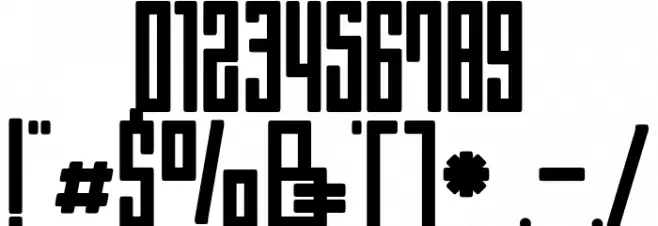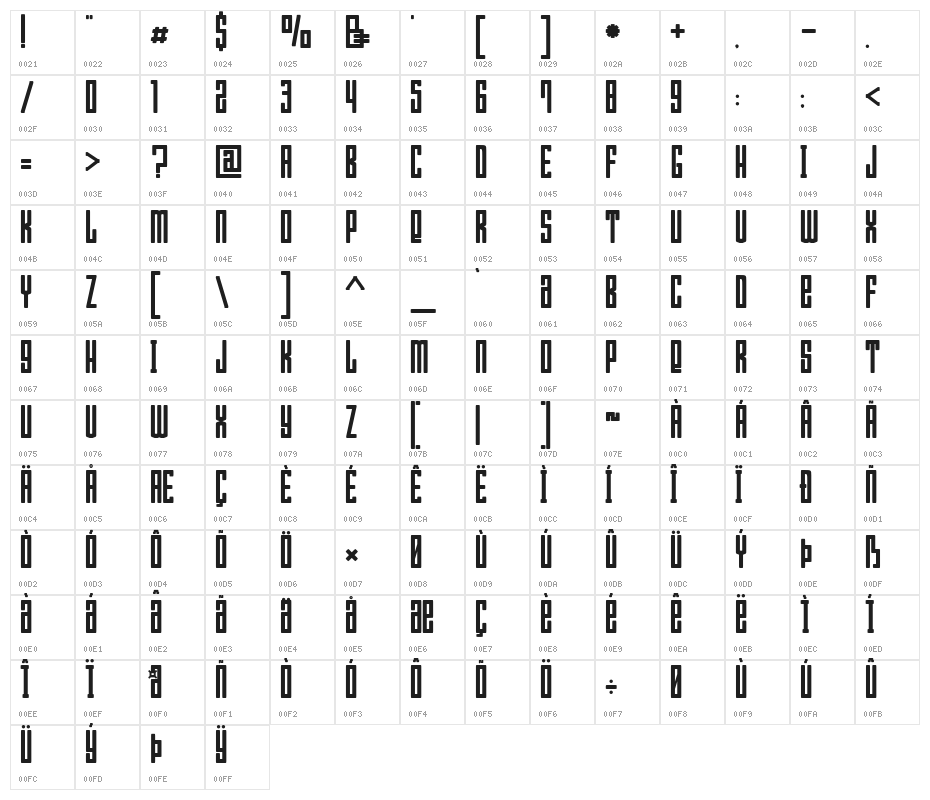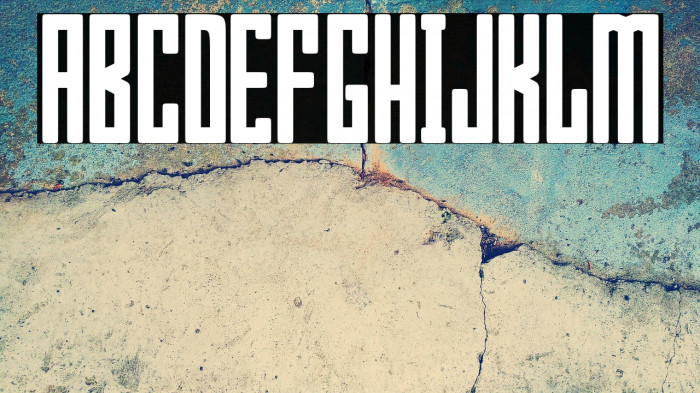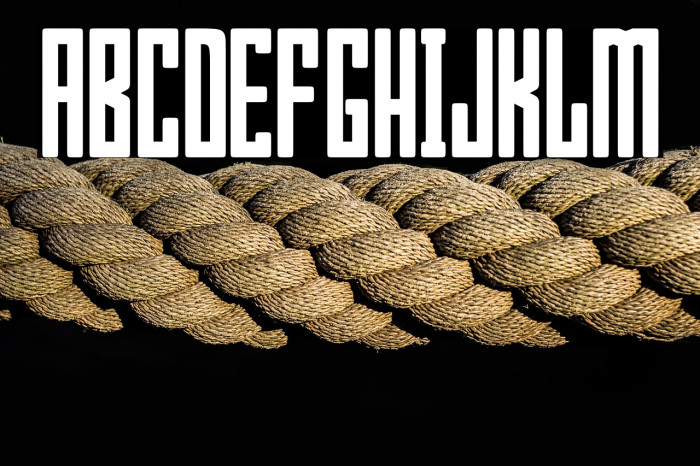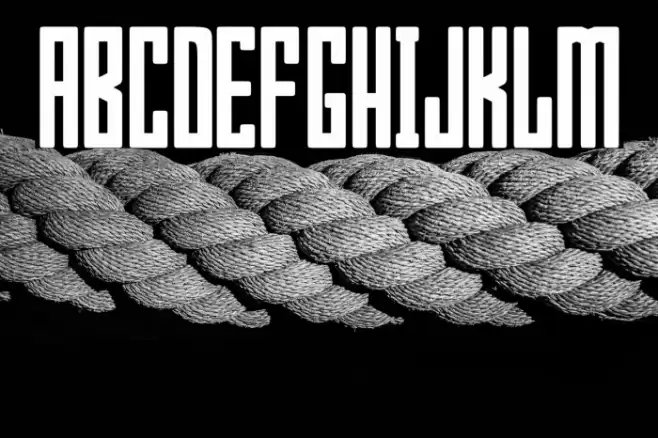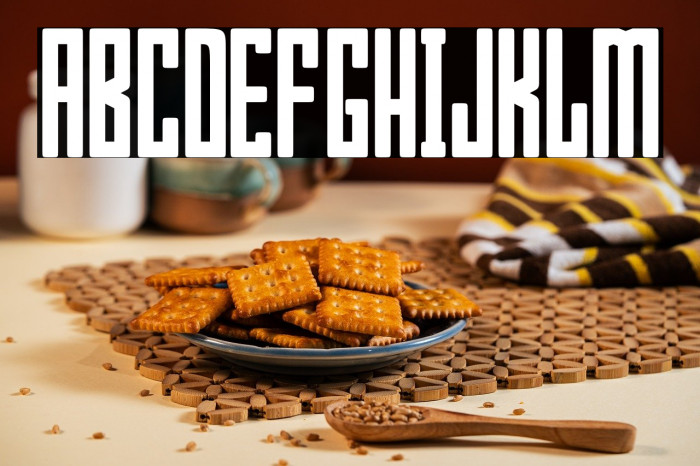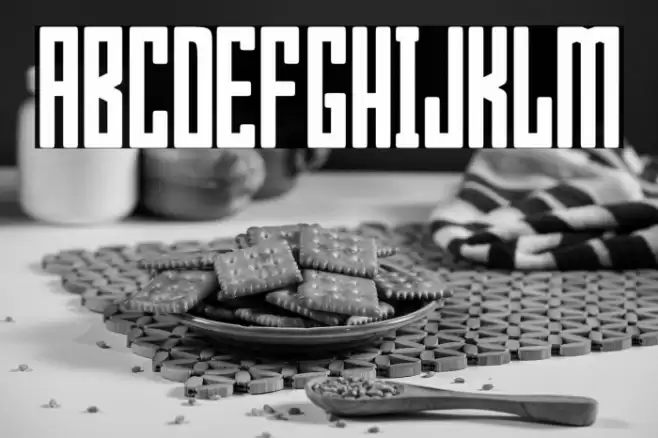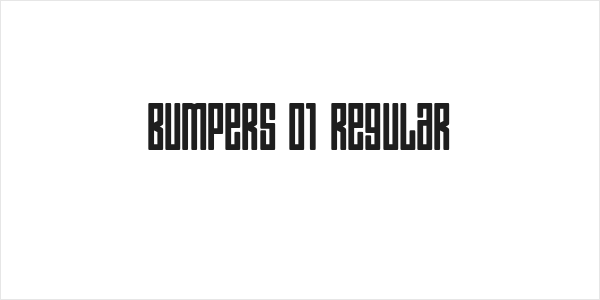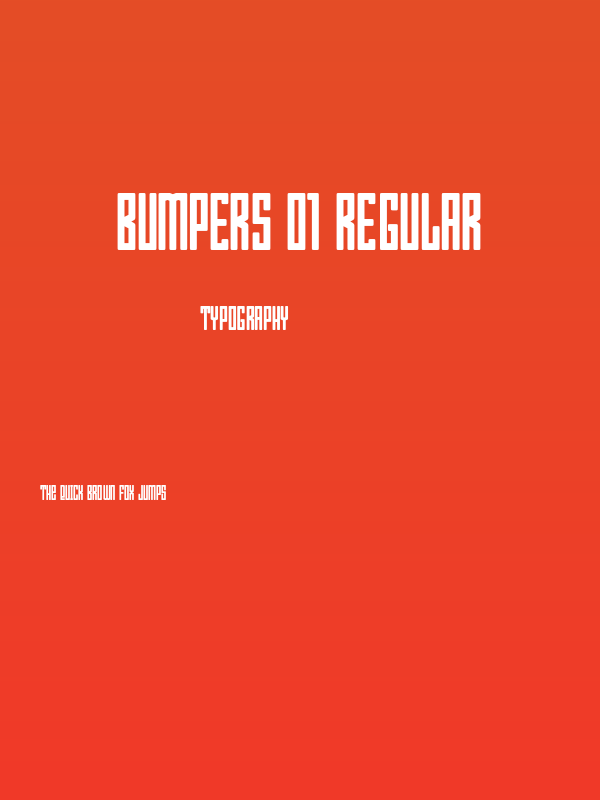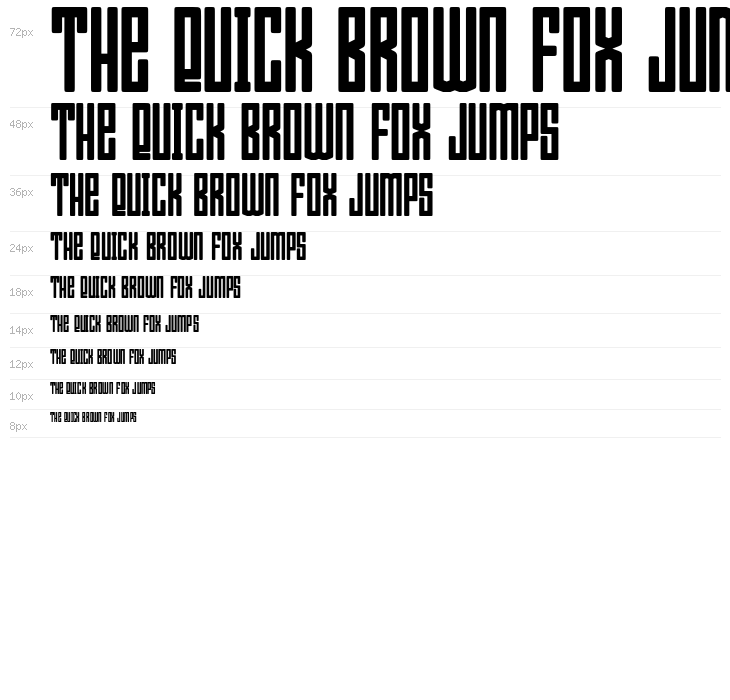
Bumpers 01 Regular Font
Bumpers 01 Regular Description
This font features a bold and geometric design with a strong presence. The characters are tall and narrow, creating a condensed appearance that emphasizes verticality. The uniform stroke width across all characters gives it a monospaced feel, while the squared edges and lack of curves contribute to a modern and industrial aesthetic. The uppercase and lowercase letters maintain a consistent style, with minimal variation in width, enhancing the font's cohesive look. The numerals and special characters follow the same design principles, ensuring a seamless integration with the alphabet. This font is ideal for projects that require a striking and impactful visual statement.
| Proposed Projects | Ideal for branding, posters, headlines, and any design requiring a strong visual impact. |